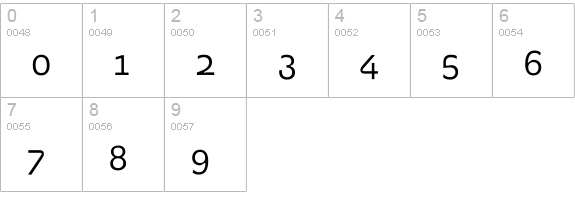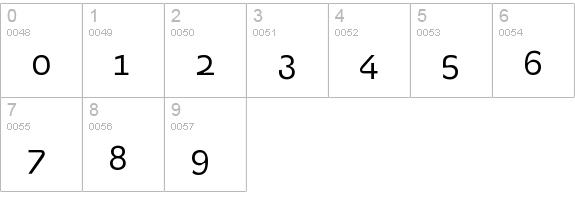
SpotkaRegular Font Details
SpotkaRegular is a versatile and modern typeface that combines elegance with readability. This font is perfect for a wide range of design projects, from branding to editorial design. The sleek lines and clean curves of SpotkaRegular make it a go-to choice for designers looking to create a sophisticated and professional look. The best part about SpotkaRegular is that it is available for free download at FontsMarket.com. This means you can easily access this high-quality font without any cost, making it a valuable addition to your design toolkit. Whether you're working on a website, poster, or logo, SpotkaRegular is sure to elevate your design and make a lasting impression. Don't miss out on the opportunity to enhance your projects with SpotkaRegular. Download this stunning font for free at FontsMarket.com and take your designs to the next level.